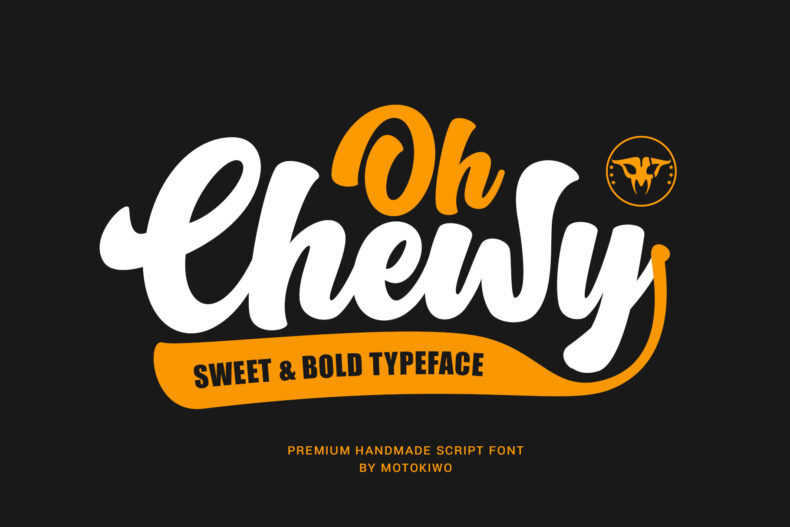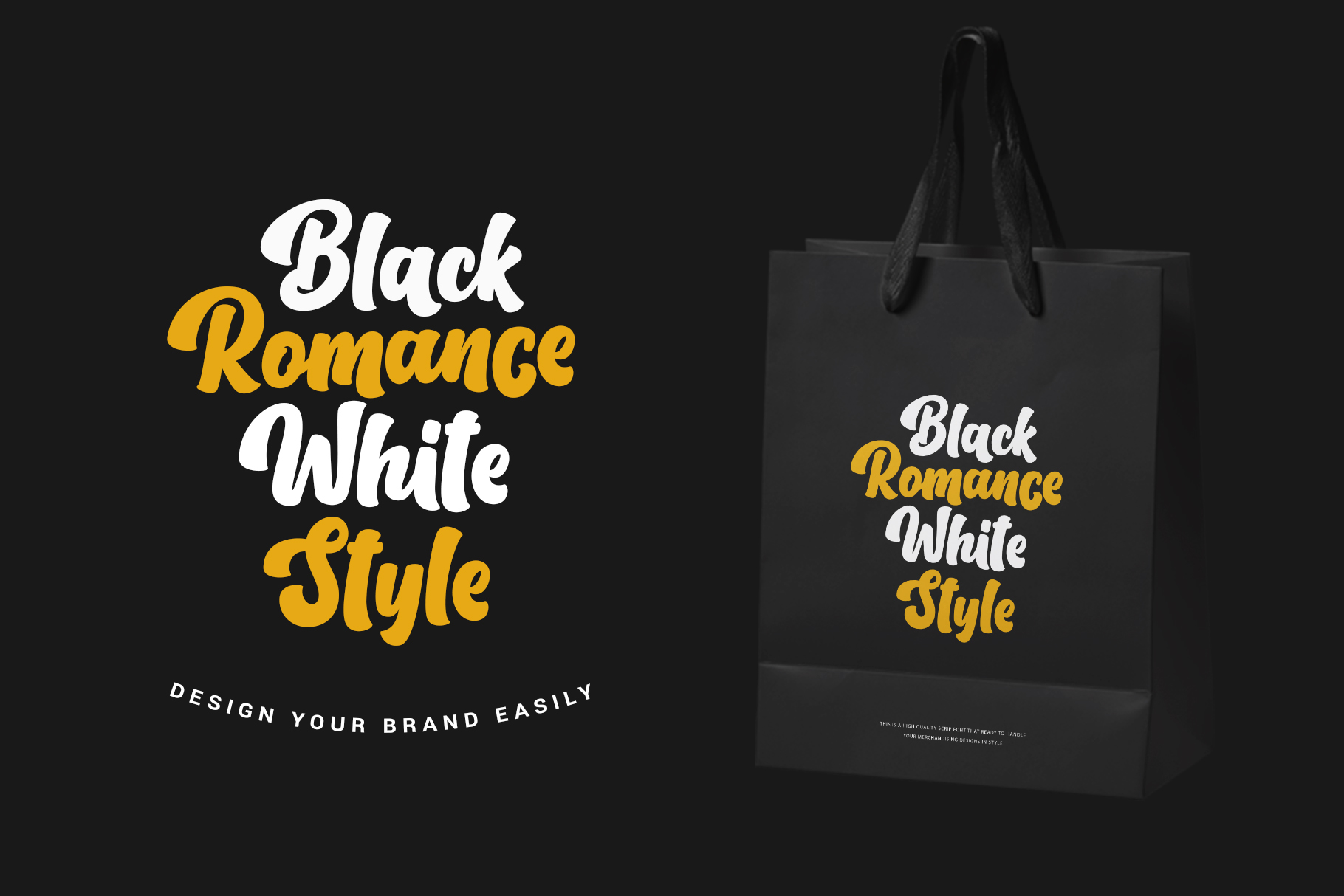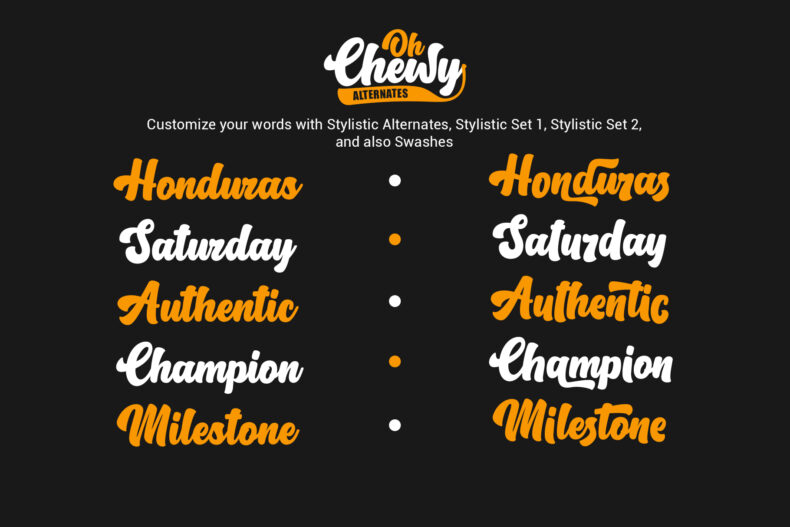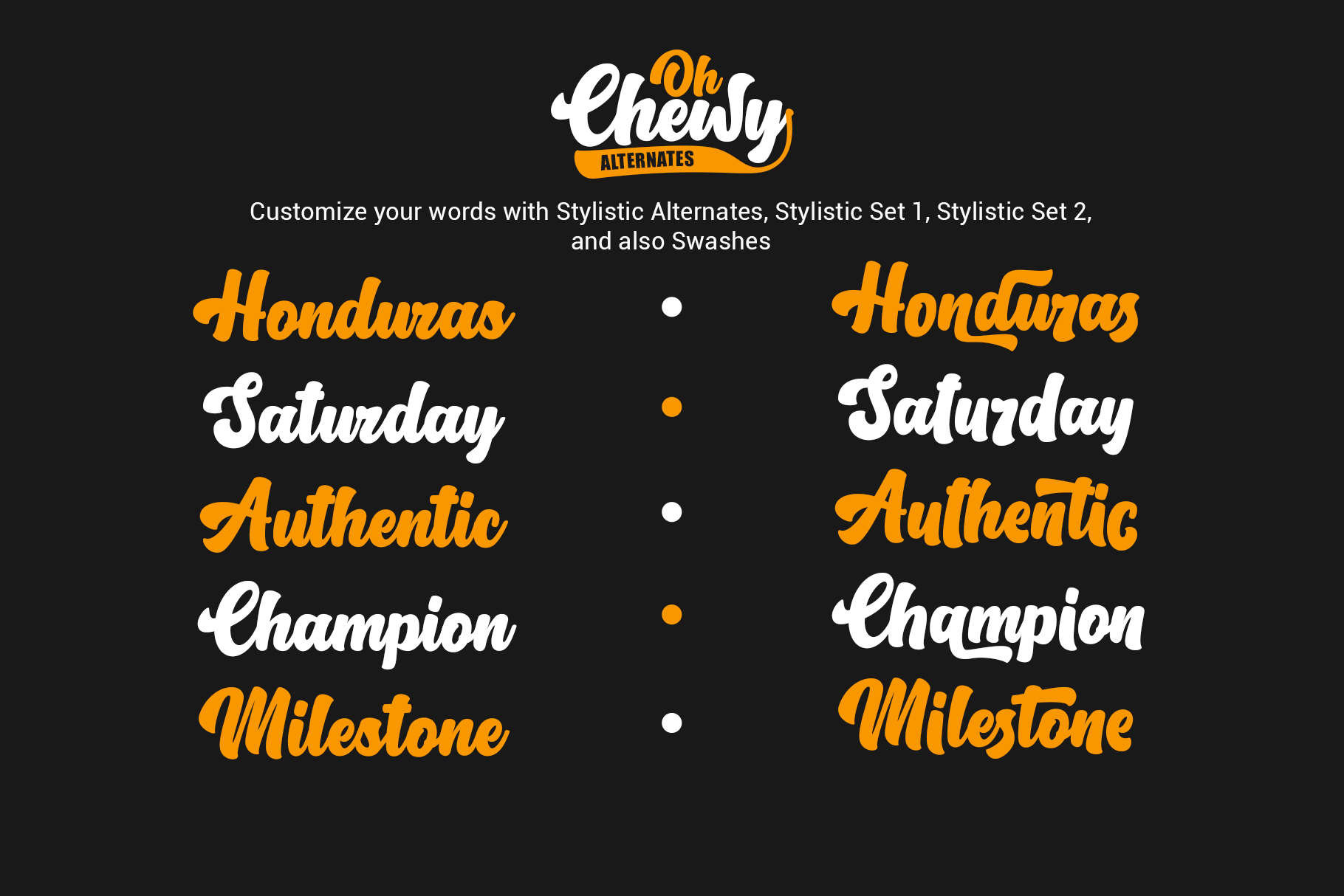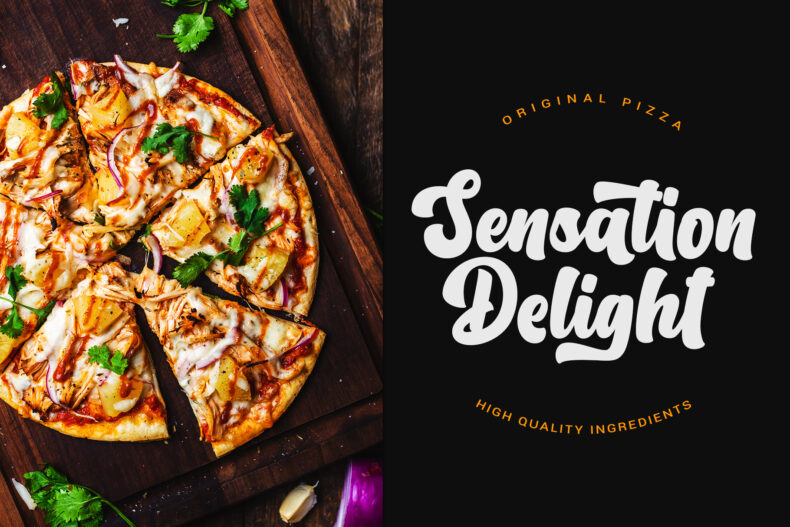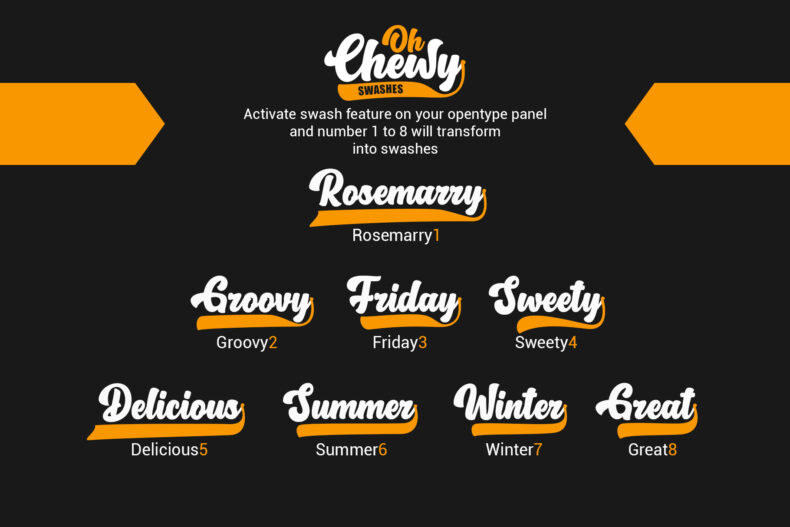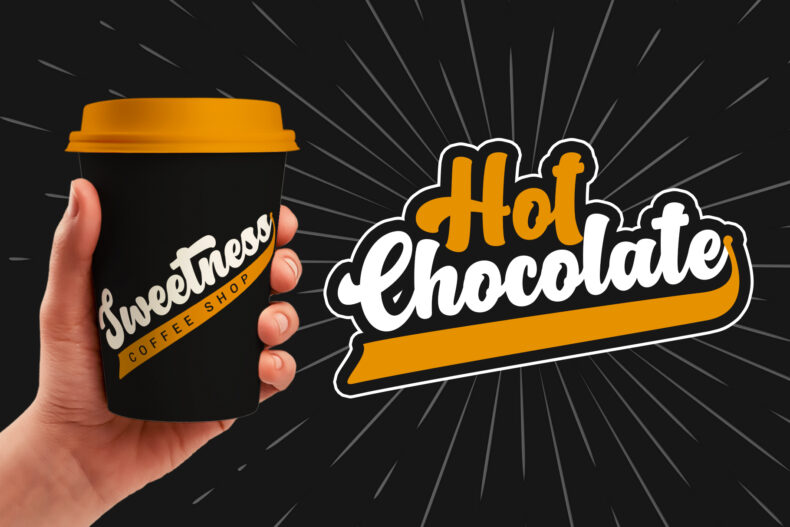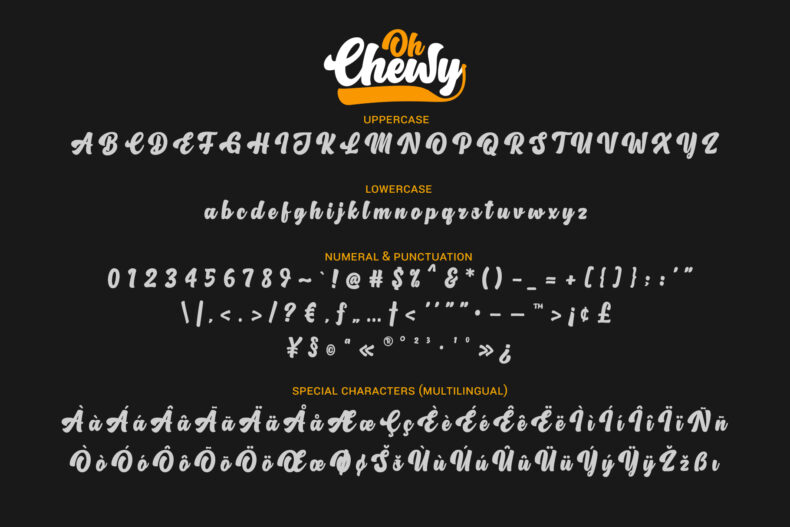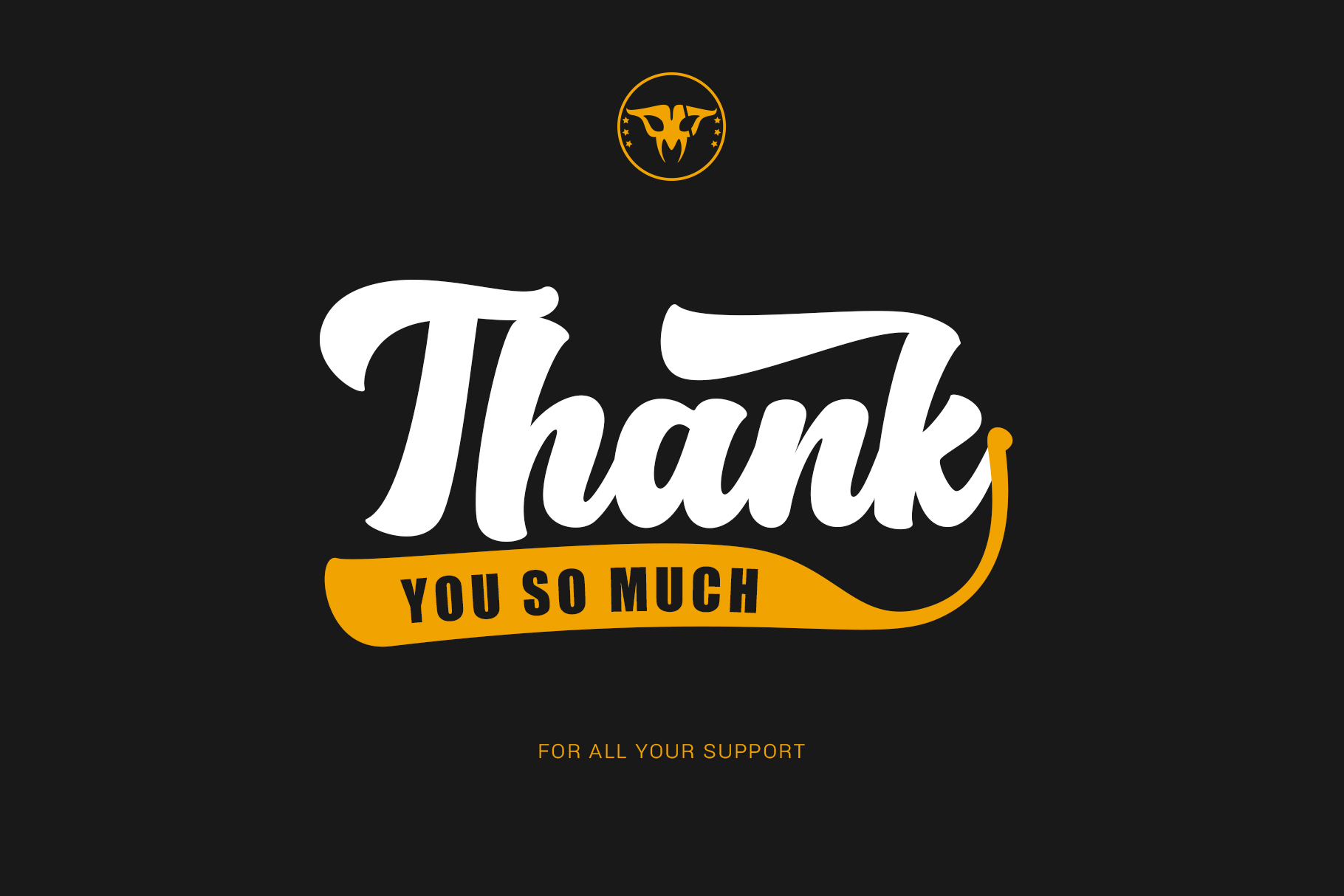
Oh Chewy is a bold script font with thick strokes, smooth edges, alternates, and swashes. Explore its sweet retro character for food branding and expressive logos.
Oh Chewy gives short brand names and headlines a substantial, rounded script presence. Try it on a bakery label, café wordmark, or retro-inspired packaging concept where the lettering can take the lead.
Alternate characters and swashes offer ways to personalize the shape of a word. Start with your name or phrase in the preview, then use decorative forms selectively so the finished lettering stays clear as well as distinctive.